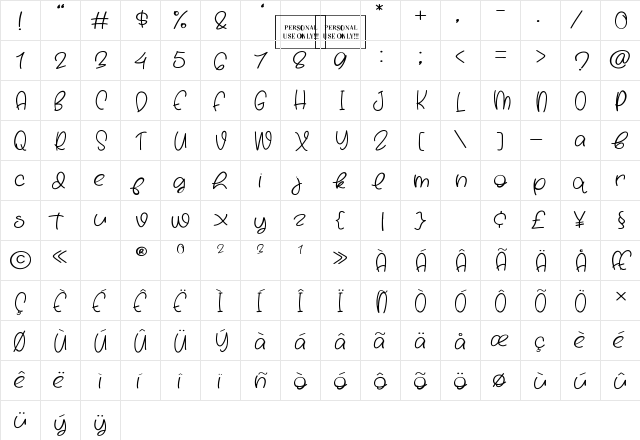
Hello Snowy Regular
Design Context for Hello Snowy Typeface
Hello Snowy is a composed and adaptable typeface that performs quietly and consistently across a wide range of design contexts.